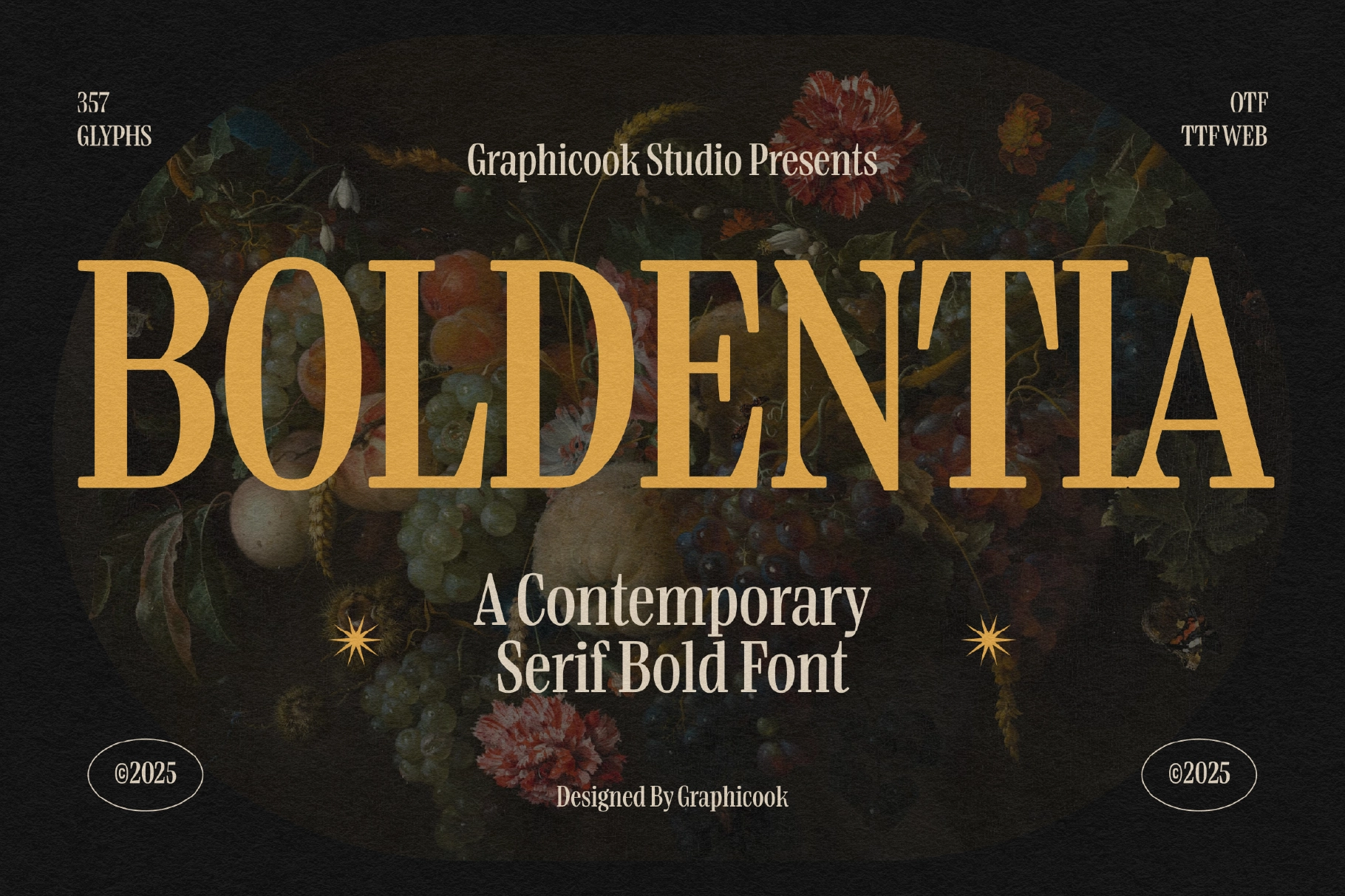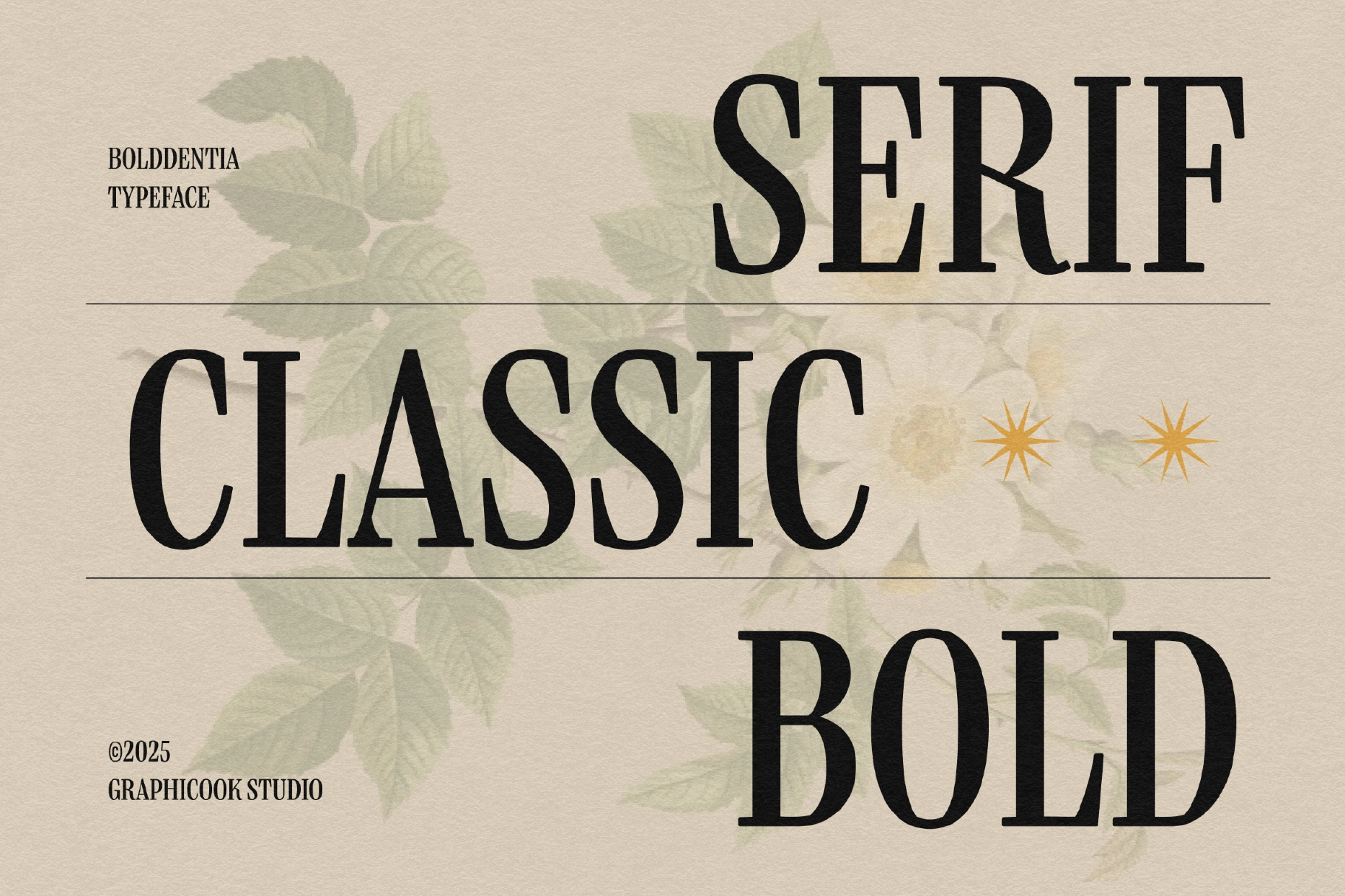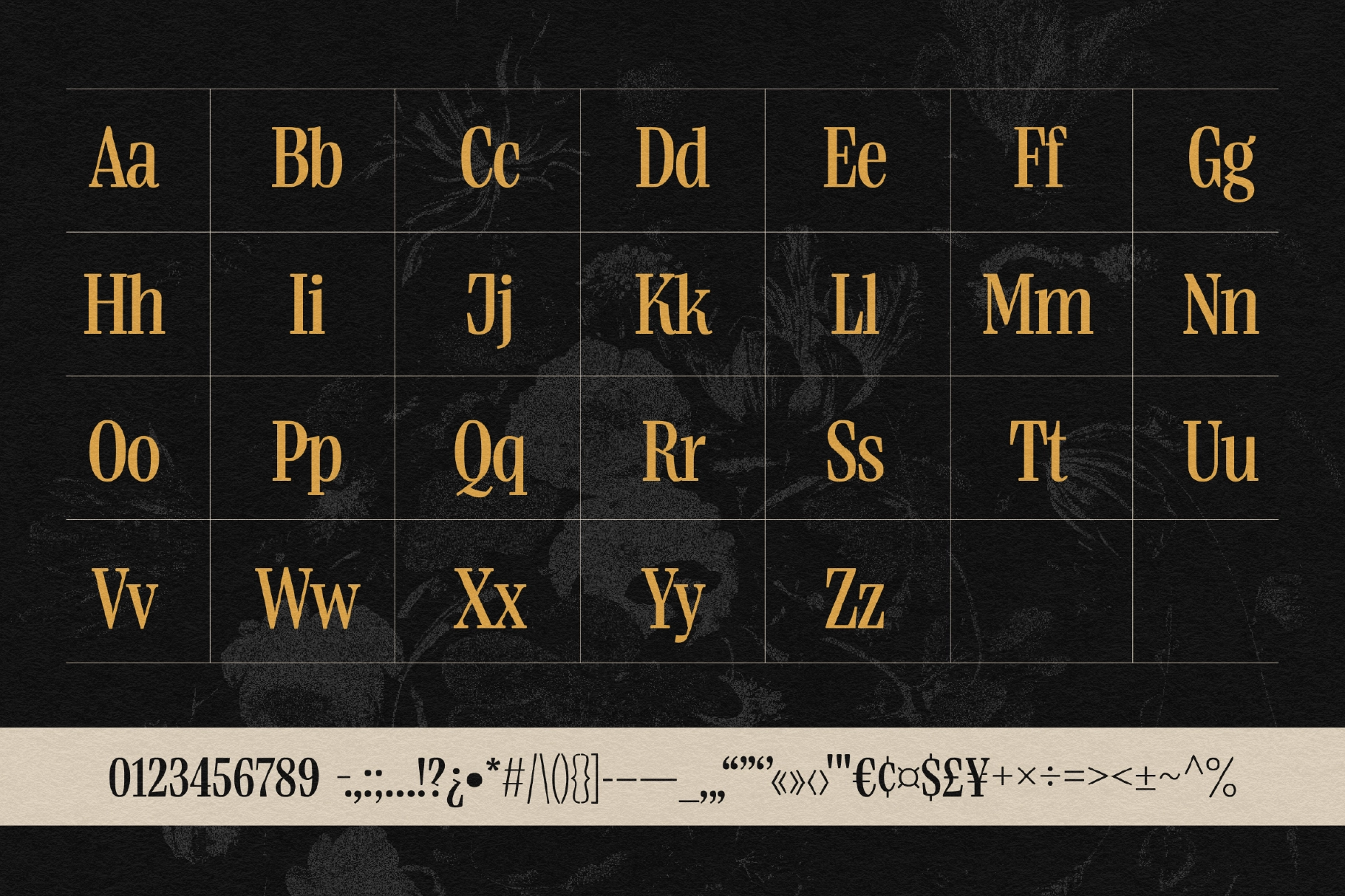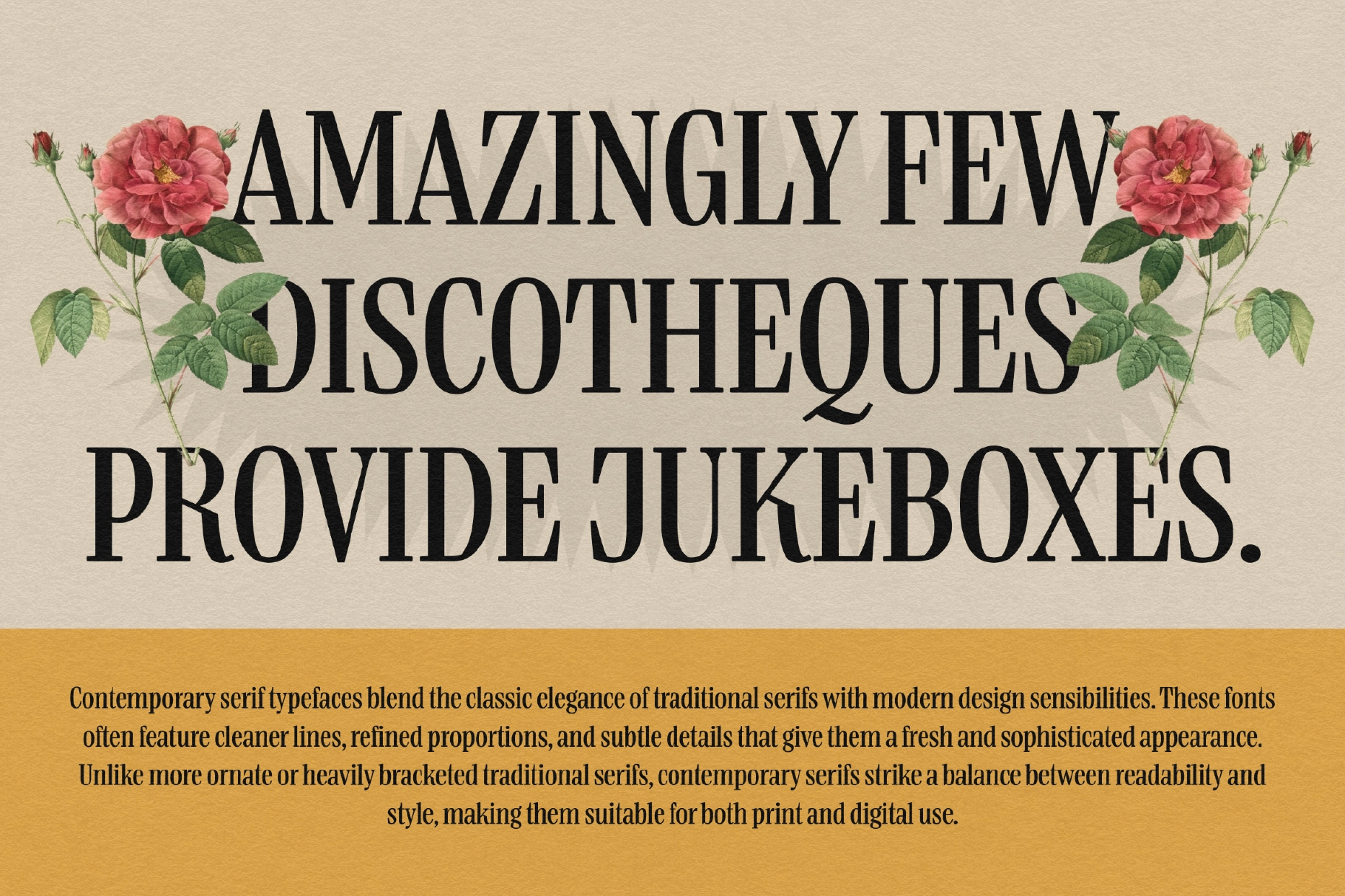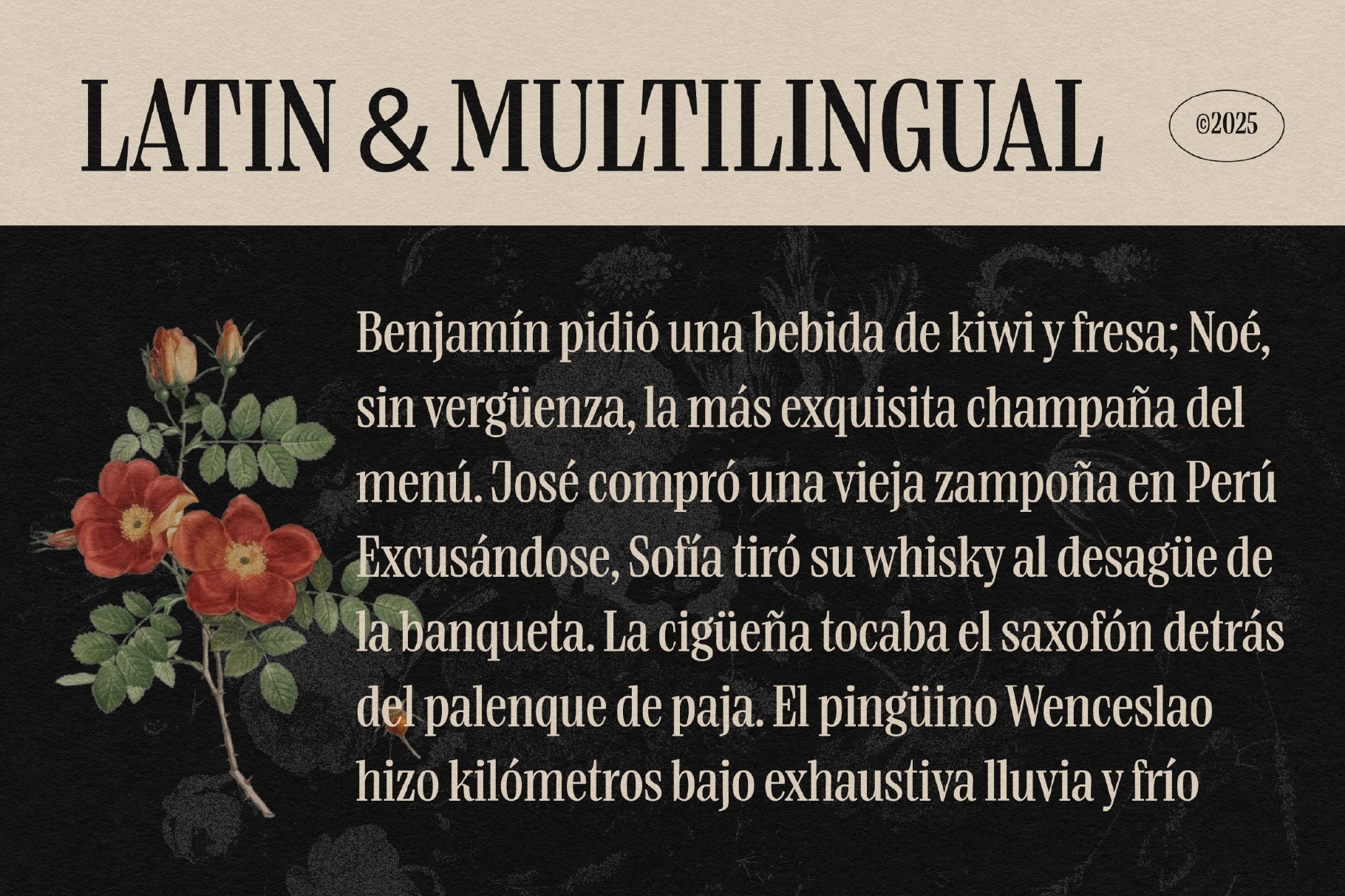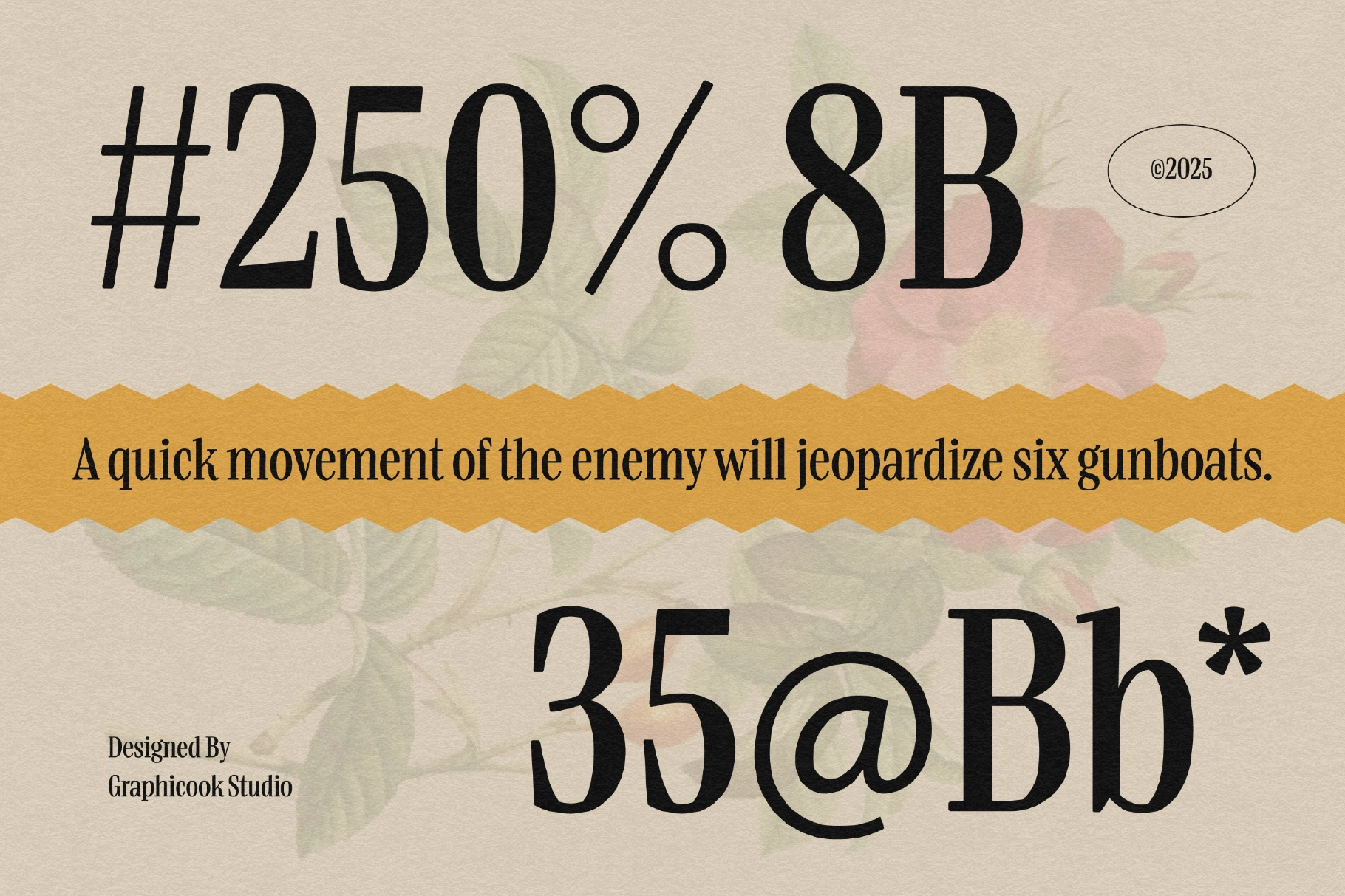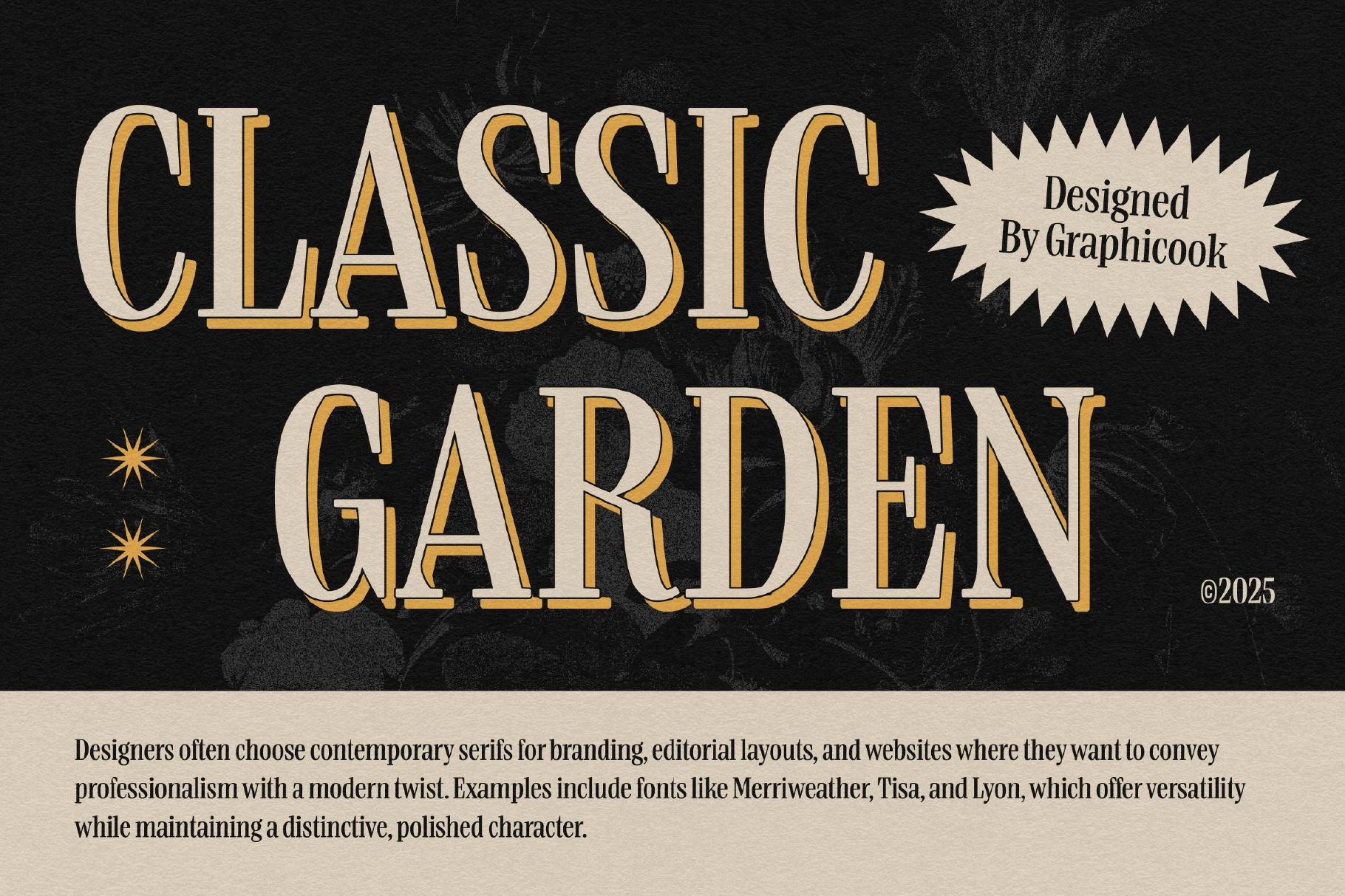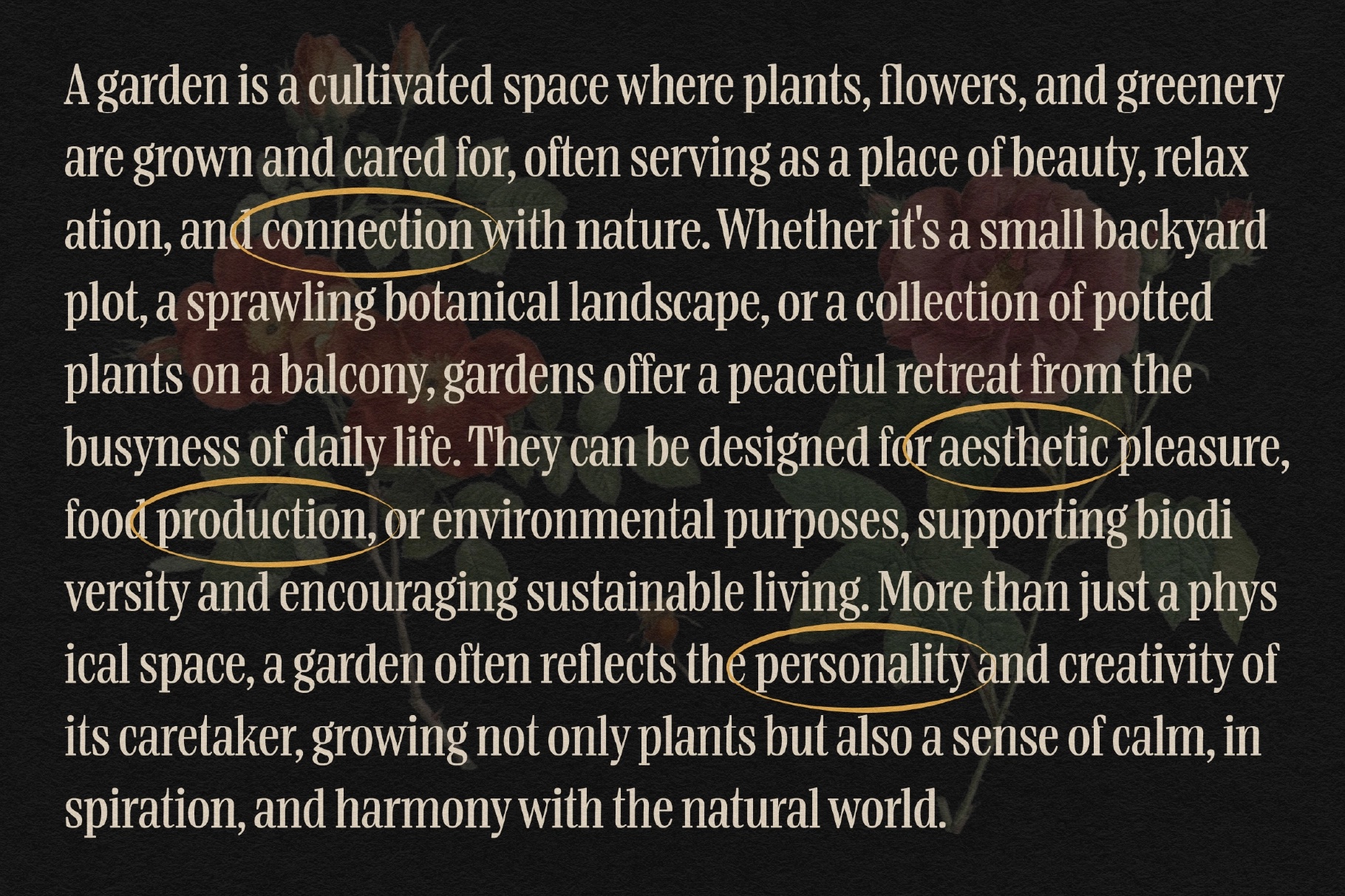
Boldentia Font
Boldentia is a serif font styled with vintage elegance, making it ideal for magazines, art posters, or sophisticated branding projects.